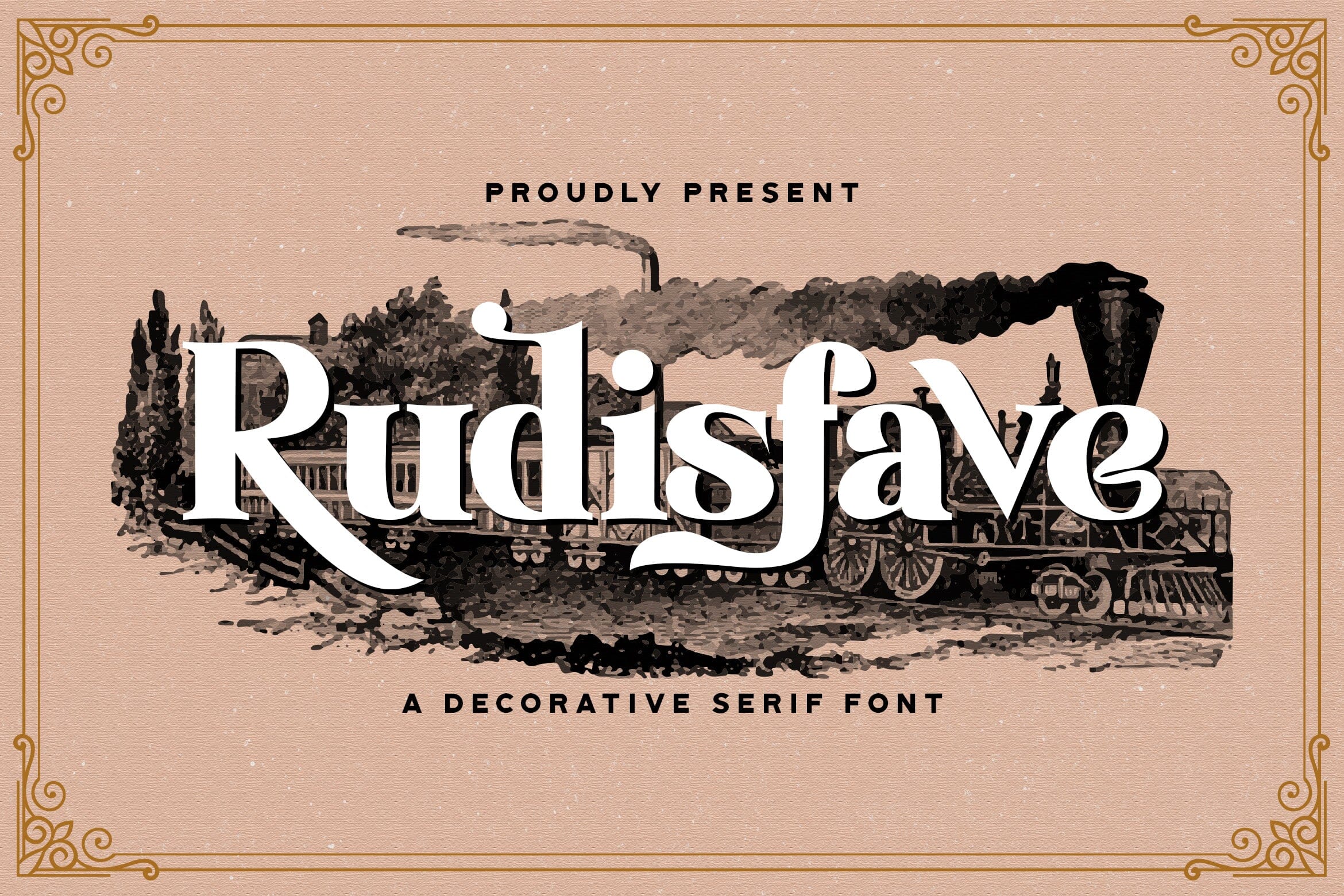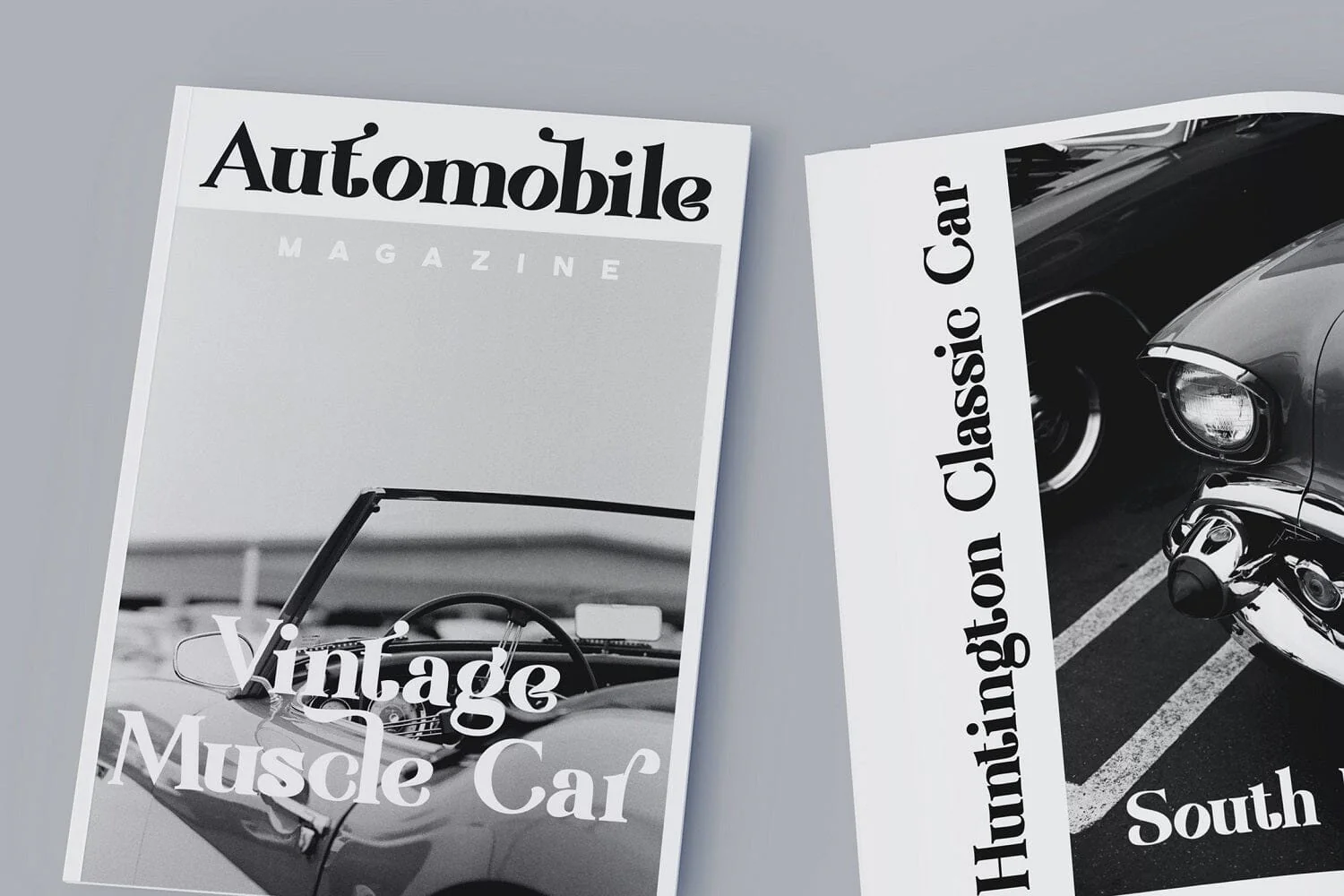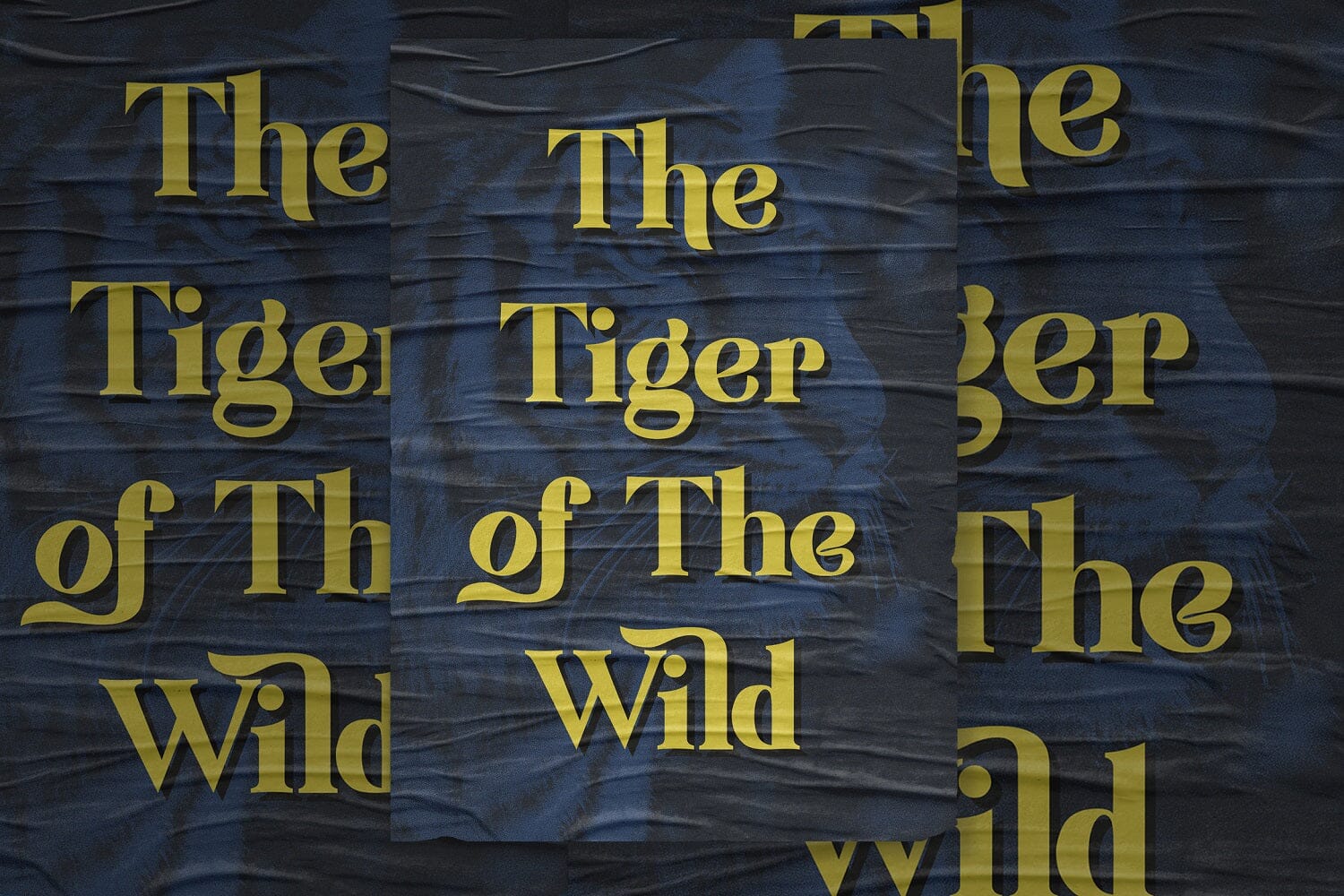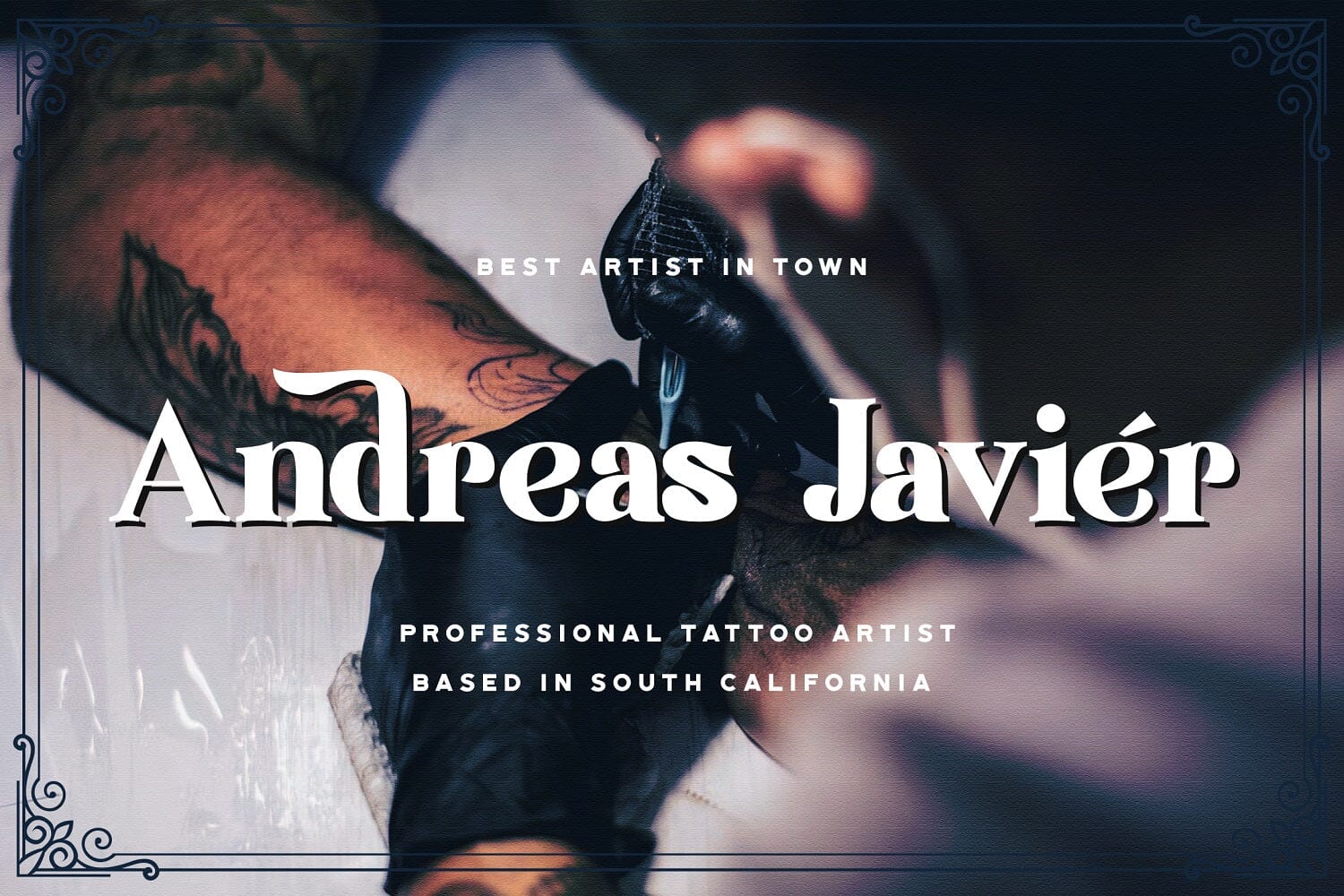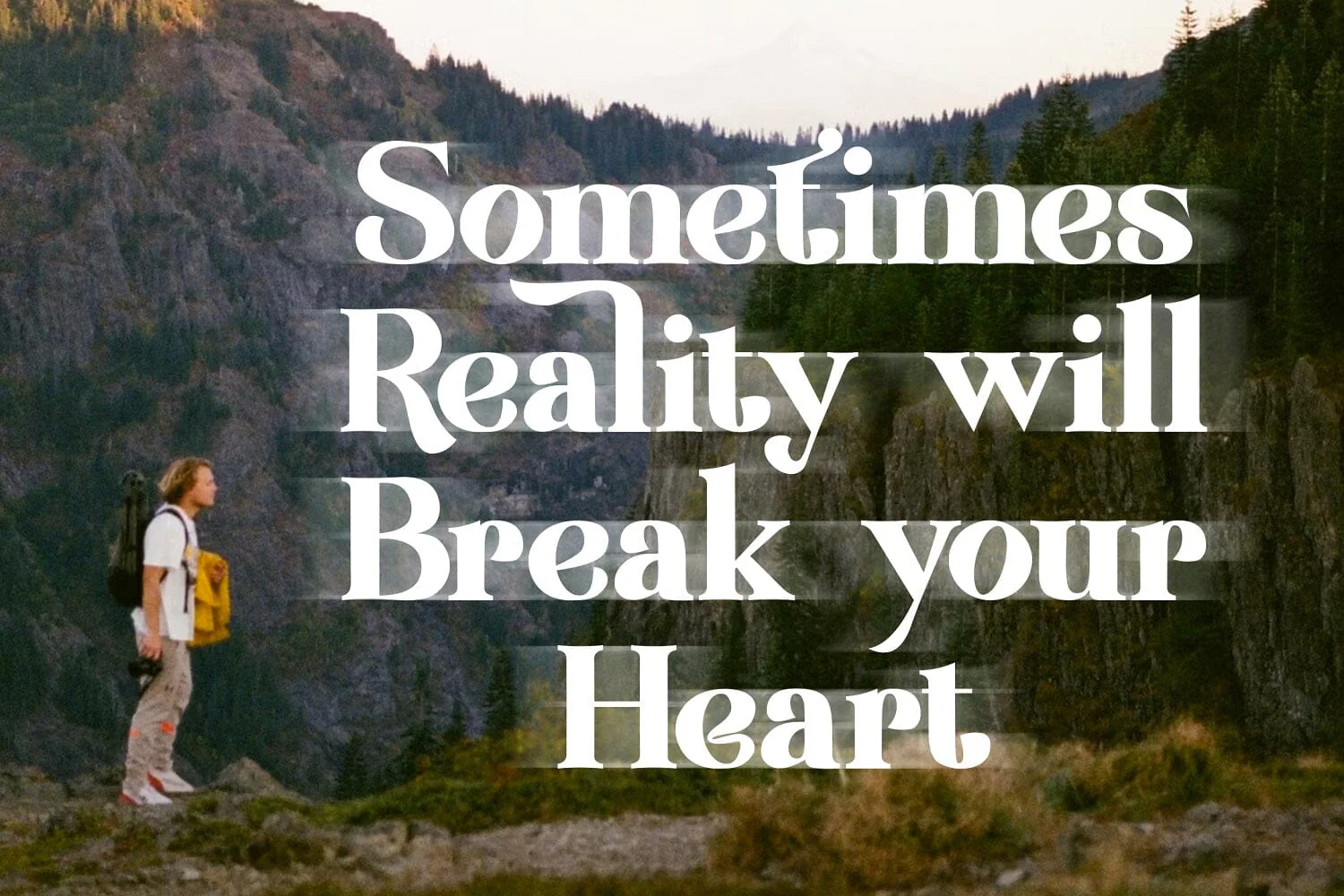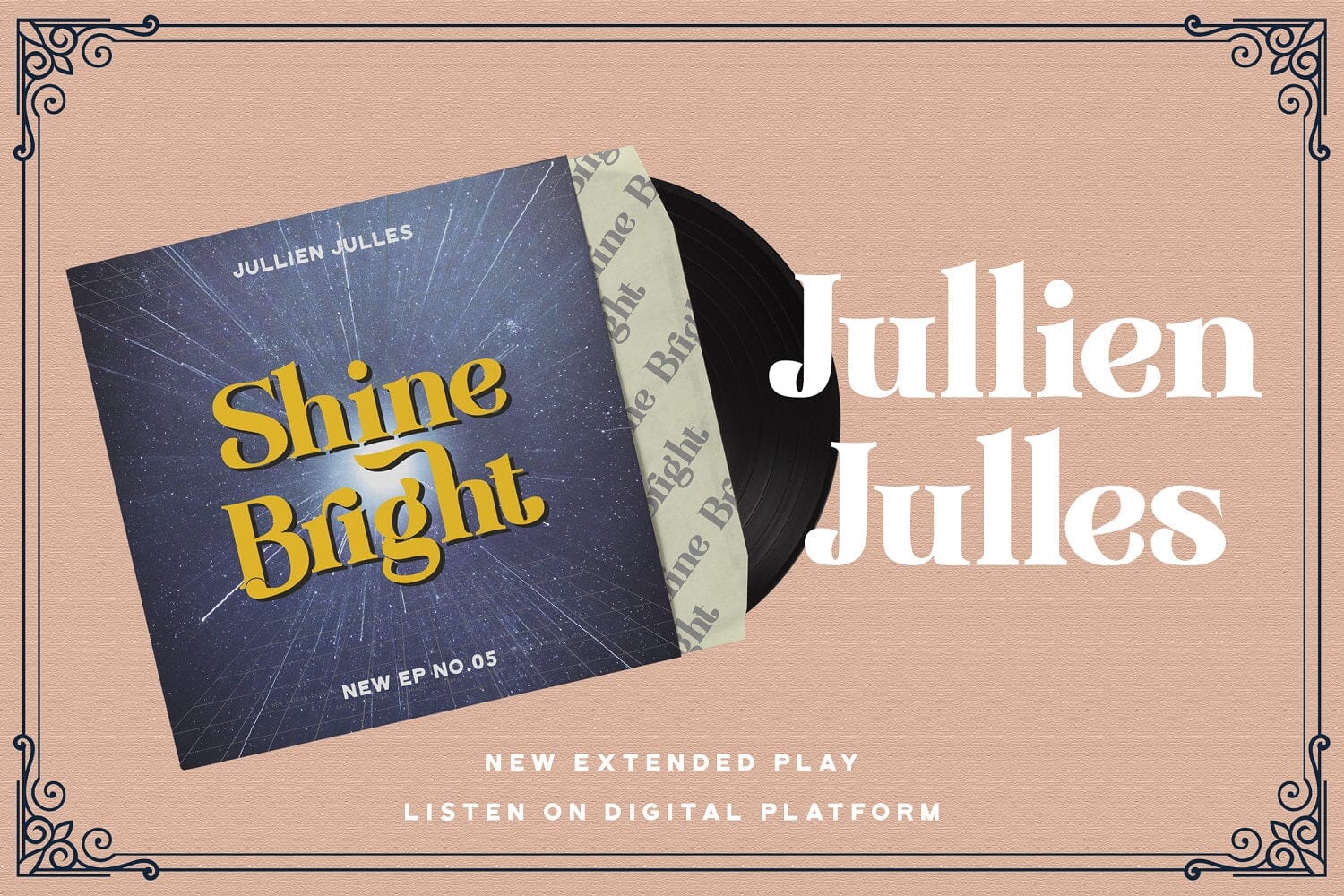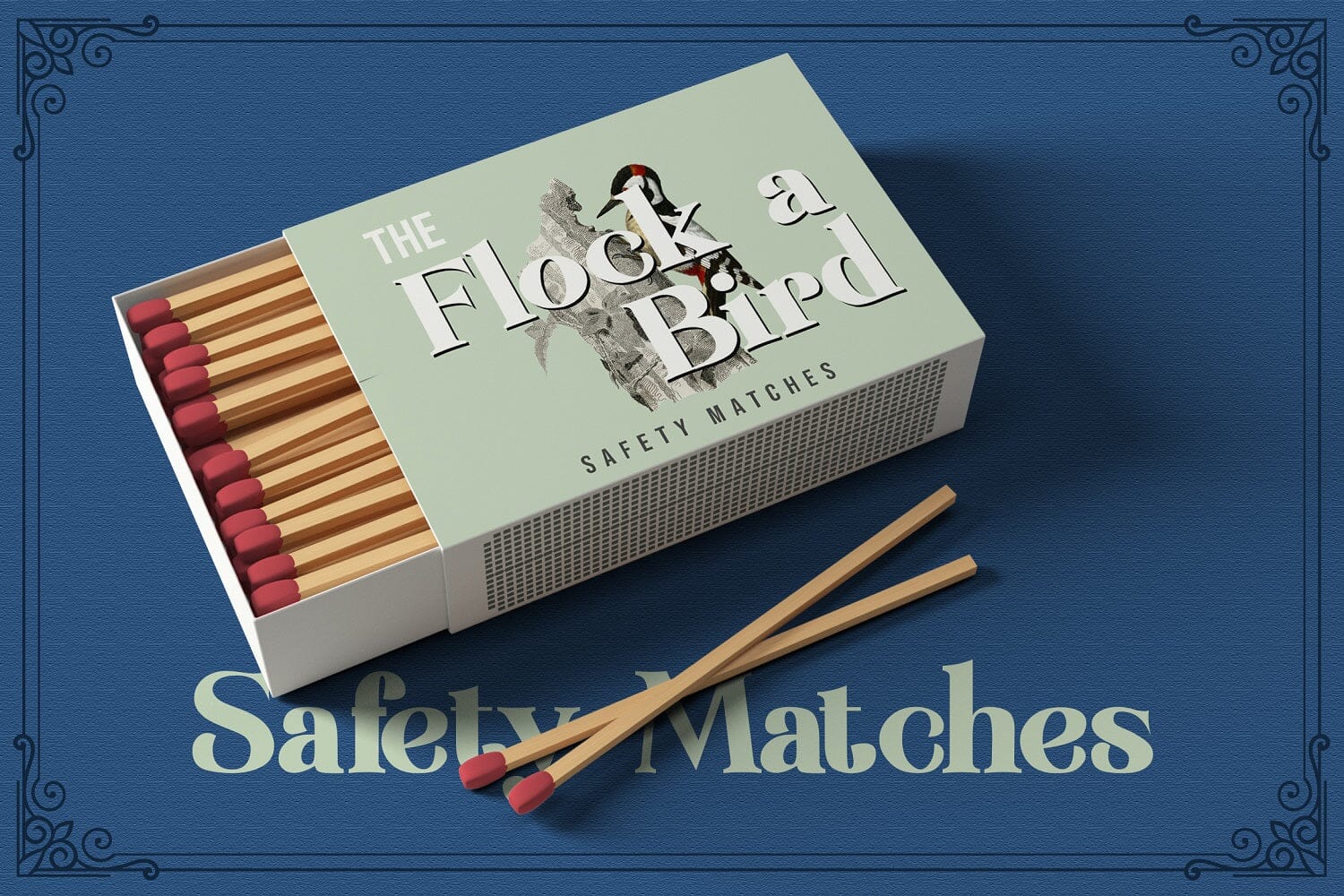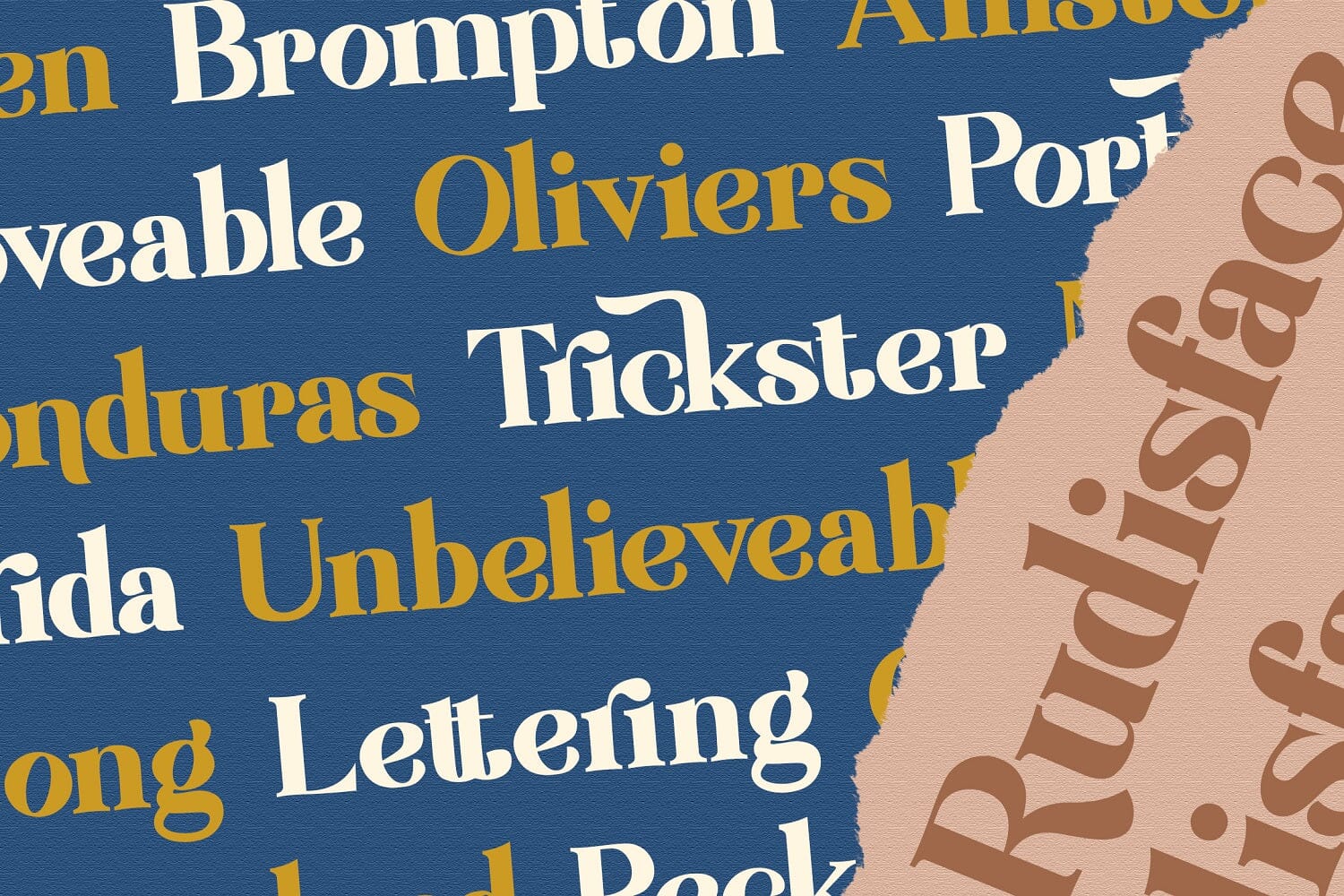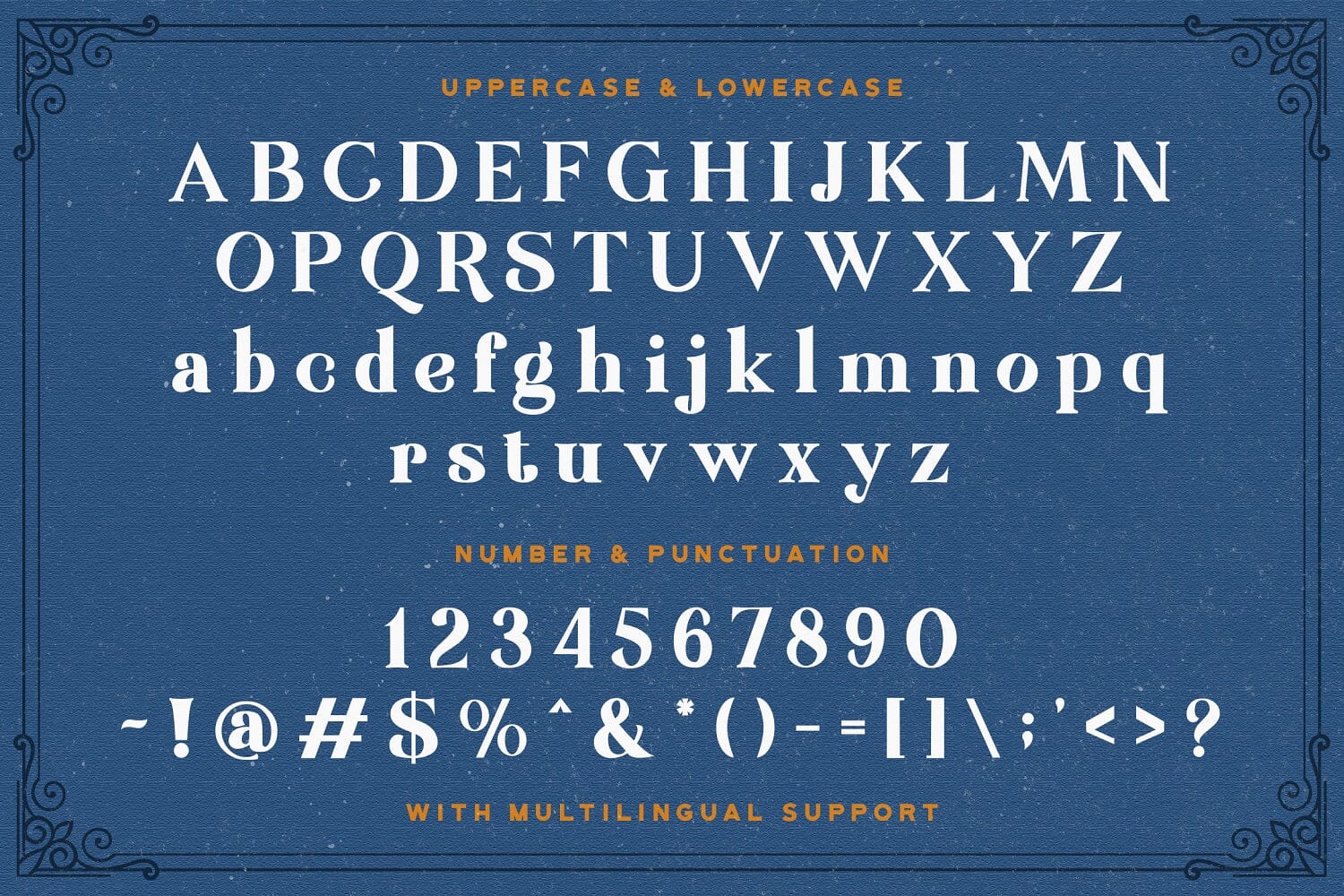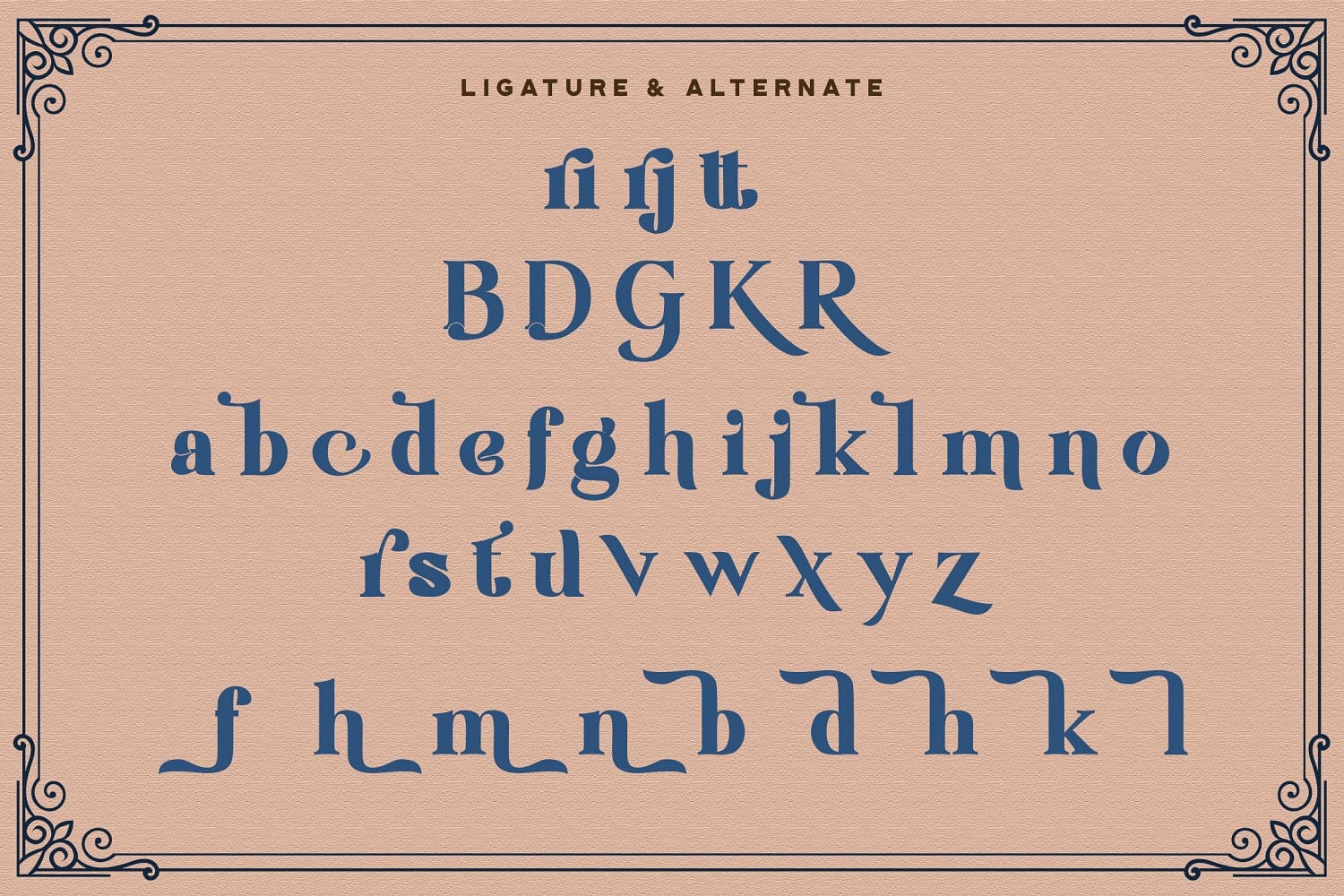
Rudisfave - Decorative Serif Font
Introducing Rudisfave - Decorative Serif Font
Rudisfave is an authentic and decorative serif font. It can easily be matched to an incredibly large set of projects, so add it to your creative ideas and notice how it makes them stand out!
- Alternates & Ligatures